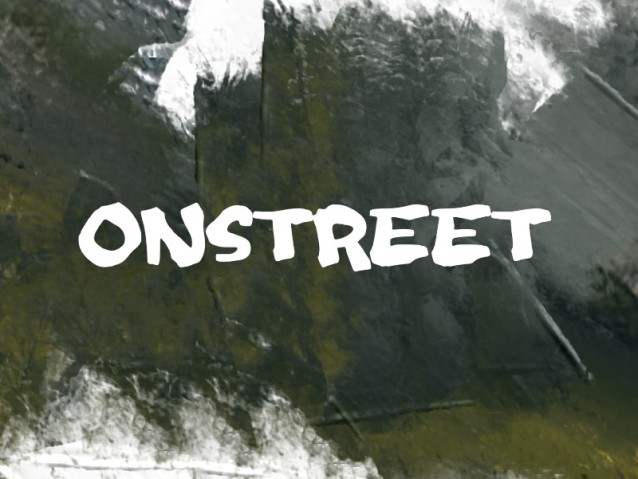
Onstreet Font
Onstreet Font is a bold, hand-drawn brush style with irregular strokes and rough edges. It conveys a casual, artistic, and slightly edgy personality, making it suitable for creative designs such as posters, album covers, or street-style graphics. The uneven letter shapes add a sense of movement and authenticity, giving the text a raw and organic appearance.